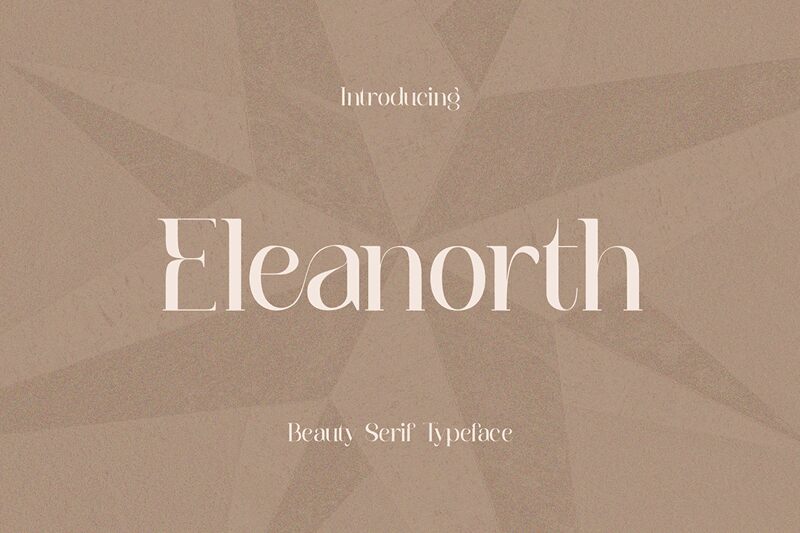
Eleanorth by RT Studio stands out as an exquisitely crafted serif font, with a semi-light weight that exudes sophistication and elegance. It's the quintessential choice for those seeking a touch of class and refinement in their creative endeavors. The graceful curves and sleek lines of Eleanorth make it particularly well-suited for high-end projects where luxury and femininity are at the forefront.
Its versatility shines through in applications ranging from bold logos to delicate editorial work, making it a go-to font for designers aiming to inject a chic, contemporary feel into their creations. Whether adorning the pages of a fashion magazine or accentuating the branding of upscale products, Eleanorth is tailored to elevate your design with its stylish poise and subtle charm.